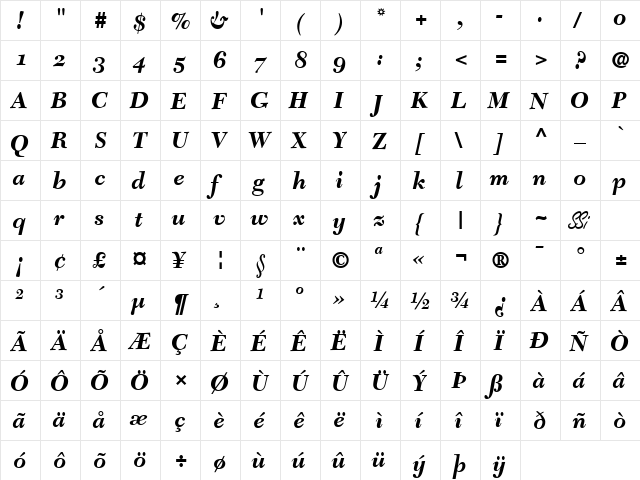
Tycoon SSi Bold Italic Old Style Figures
Design Context for Tycoon SSi Typeface
Tycoon SSi offers clean, dependable letterforms without strong stylistic allegiance, making it a practical choice for designers who need flexibility. The slanted form adds forward momentum and visual energy. The heavy weight commands attention and anchors typographic hierarchies.
Pro Tip: Try Tycoon SSi for annotation and caption copy alongside an upright companion — the contrast in angle creates a dynamic but ordered typographic system.